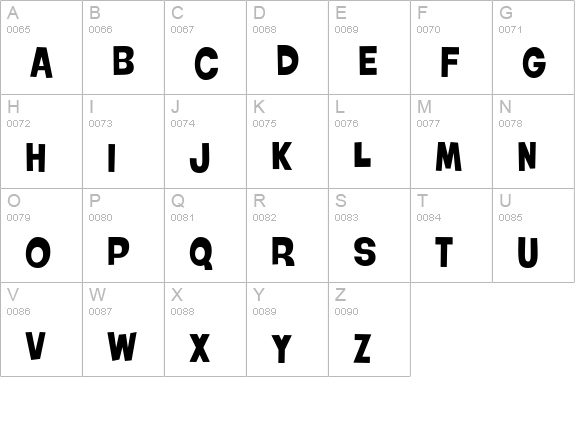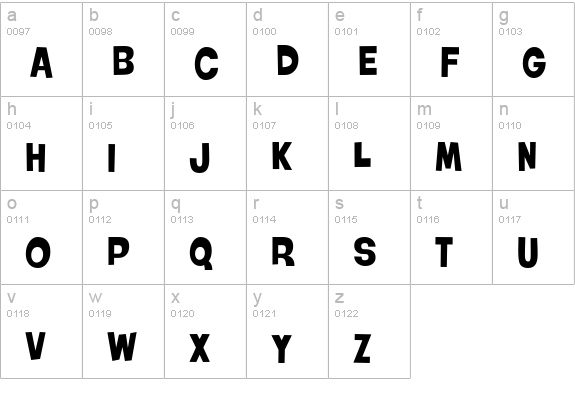
Roller World BTN is a playful and dynamic font that captures the spirit of fun and excitement. With its bold and energetic design, this font is perfect for projects that require a touch of whimsy and creativity. Whether you're working on a poster, logo, or branding project, Roller World BTN will surely make your designs stand out. The best part is that Roller World BTN is available for free download at FontsMarket.com. You can easily add this unique font to your collection and use it in a variety of creative projects without any cost. Don't miss out on the opportunity to elevate your designs with this eye-catching font that exudes energy and personality. Download Roller World BTN now and let your creativity roll!